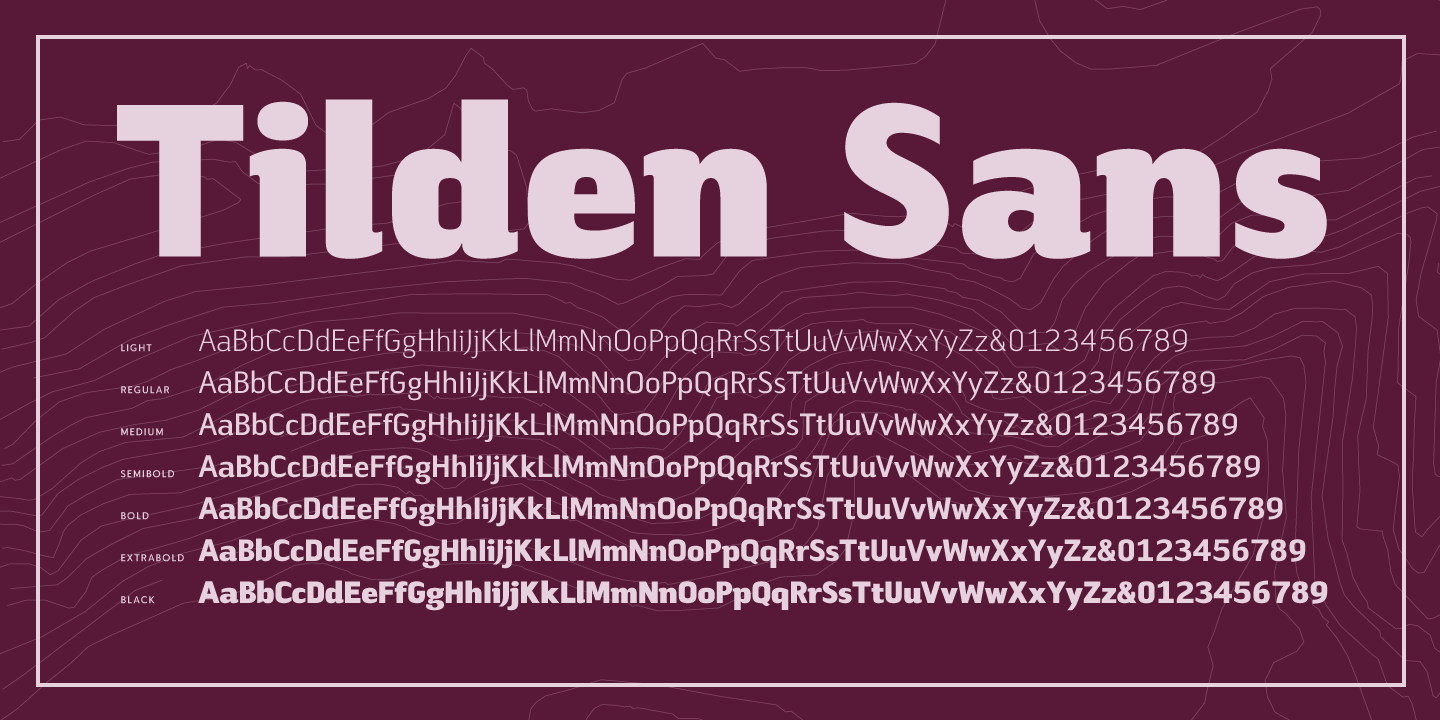
Tilden Sans Font is ideal for modern corporate branding, clean website interfaces, professional presentation materials, minimalist logo designs, contemporary signage systems, and streamlined business communications.
Tilden Sans Font is exciting because it embodies contemporary clarity and professional sophistication, delivering a versatile sans-serif typeface that captures modern design principles, functional beauty, and the clean aesthetics of effective communication.
The Tilden Sans Font family includes professional variations: Tilden Sans Thin, Tilden Sans Light, Tilden Sans Regular, Tilden Sans Medium, Tilden Sans Bold, Tilden Sans Black, with comprehensive character sets for global business applications.
Achieve design clarity with Tilden Sans Font Free Download, a professionally crafted typeface that brings contemporary sophistication and functional elegance to your most important business design projects. This versatile font excels in creating trustworthy branding for technology companies, consulting firms, healthcare organizations, and financial institutions that require clear, authoritative typography that performs flawlessly across all communication platforms. The meticulously designed letterforms feature optimal proportions and balanced character spacing that ensure maximum legibility while maintaining sophisticated visual appeal in both digital interfaces and printed materials. Perfect for corporate annual reports, professional websites, business presentation templates, and institutional communications that need to convey competence and modern professionalism, this font connects with audiences who value clarity, efficiency, and contemporary design excellence. Each character communicates with professional precision, making every business message feel expertly crafted and institutionally credible. Tilden Sans Font transforms routine business communications into polished presentations that establish professional authority while ensuring optimal readability and user experience across diverse applications and international markets where clear communication drives success.